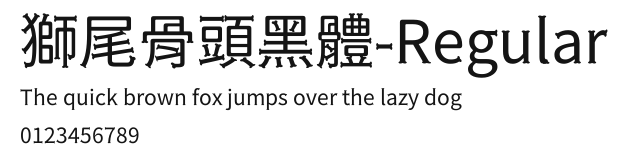
獅尾骨頭黑體-Regular Preview
About 獅尾骨頭黑體-Regular.ttf
獅尾骨頭黑體-Regular.ttf is a modern, elegant sans-serif font designed for ultimate readability and visual harmony. Perfect for branding, headlines, web design, and print materials.